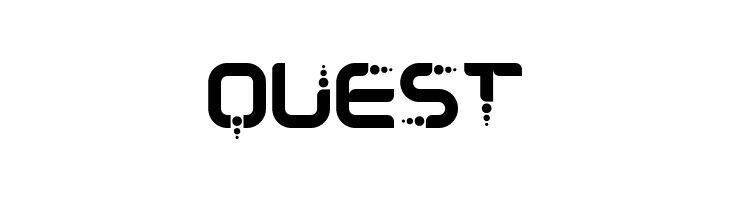
Znow White Italic Font
- Font: Znow White Italic
A futuristic, tech-inspired font with dotted accents and bold geometric shapes.
( Fonts by Dennis Ludlow - Sharkshock Productions )